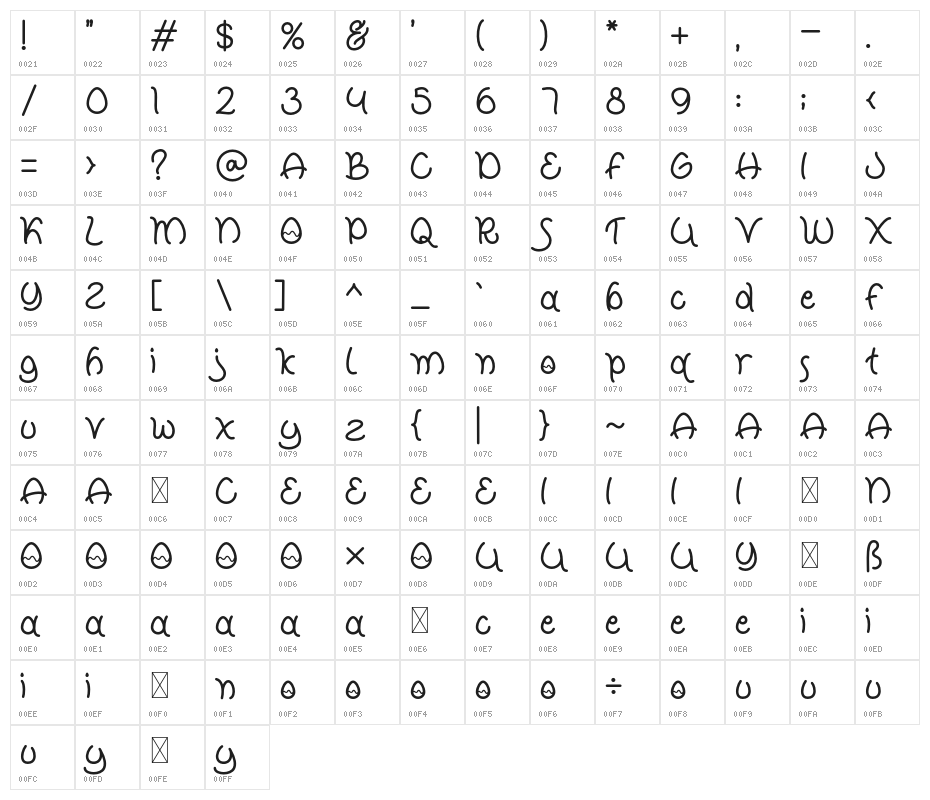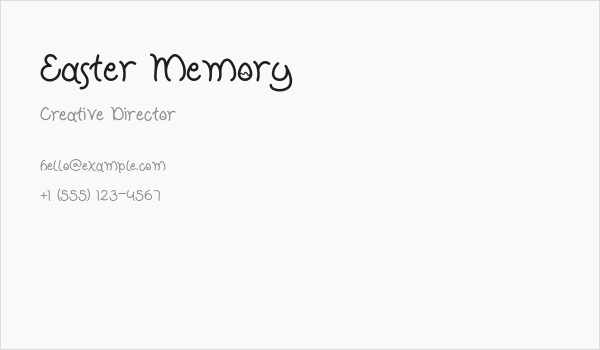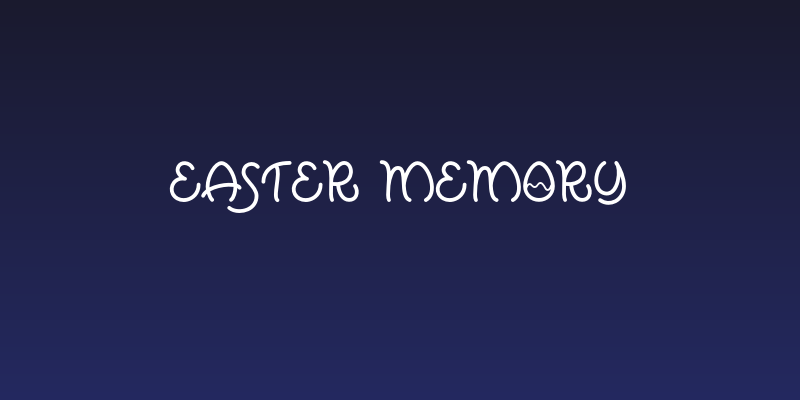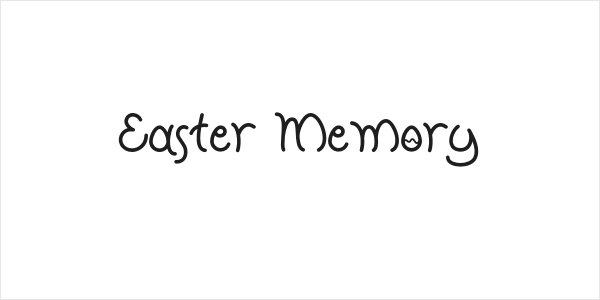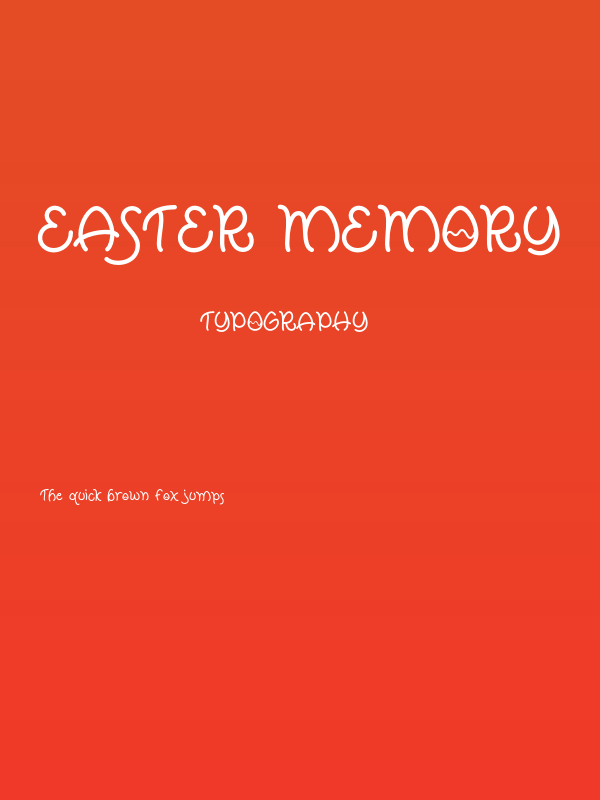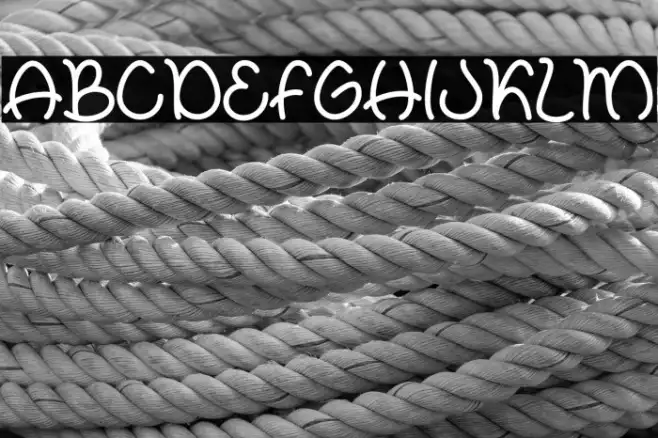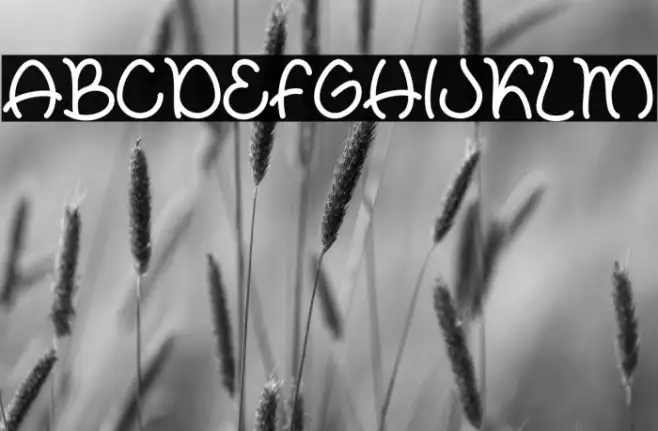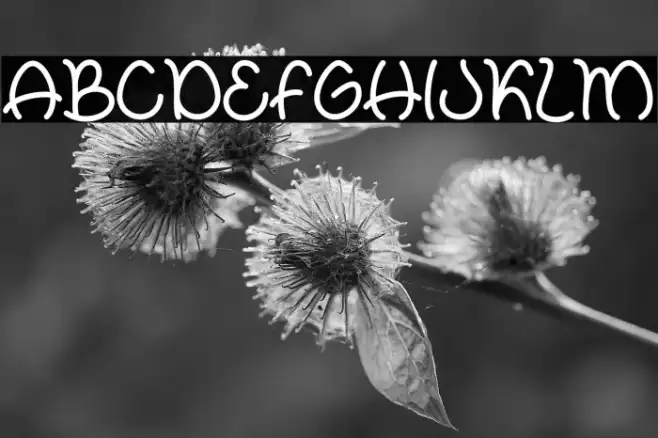
Easter Memory Font
Easter Memory Description
This playful and whimsical font features a handwritten style with rounded, flowing characters that convey a sense of fun and creativity. The letters are slightly irregular, adding a personal touch reminiscent of casual handwriting. The uppercase and lowercase letters maintain a consistent style, with smooth curves and a friendly appearance. Numbers and special characters are designed to match the overall aesthetic, making this font versatile for various uses. Its unique charm makes it suitable for projects that require a lighthearted and approachable feel.
| Proposed Projects | Ideal for children's books, greeting cards, playful branding, and creative projects. |